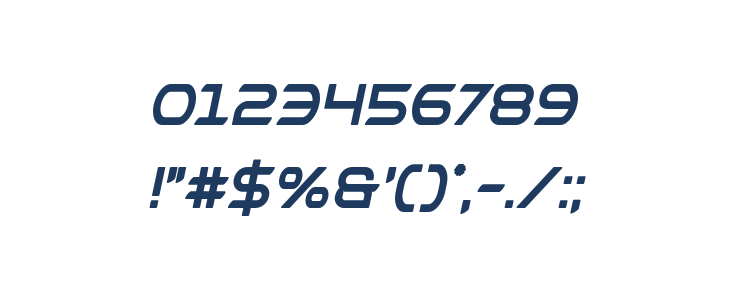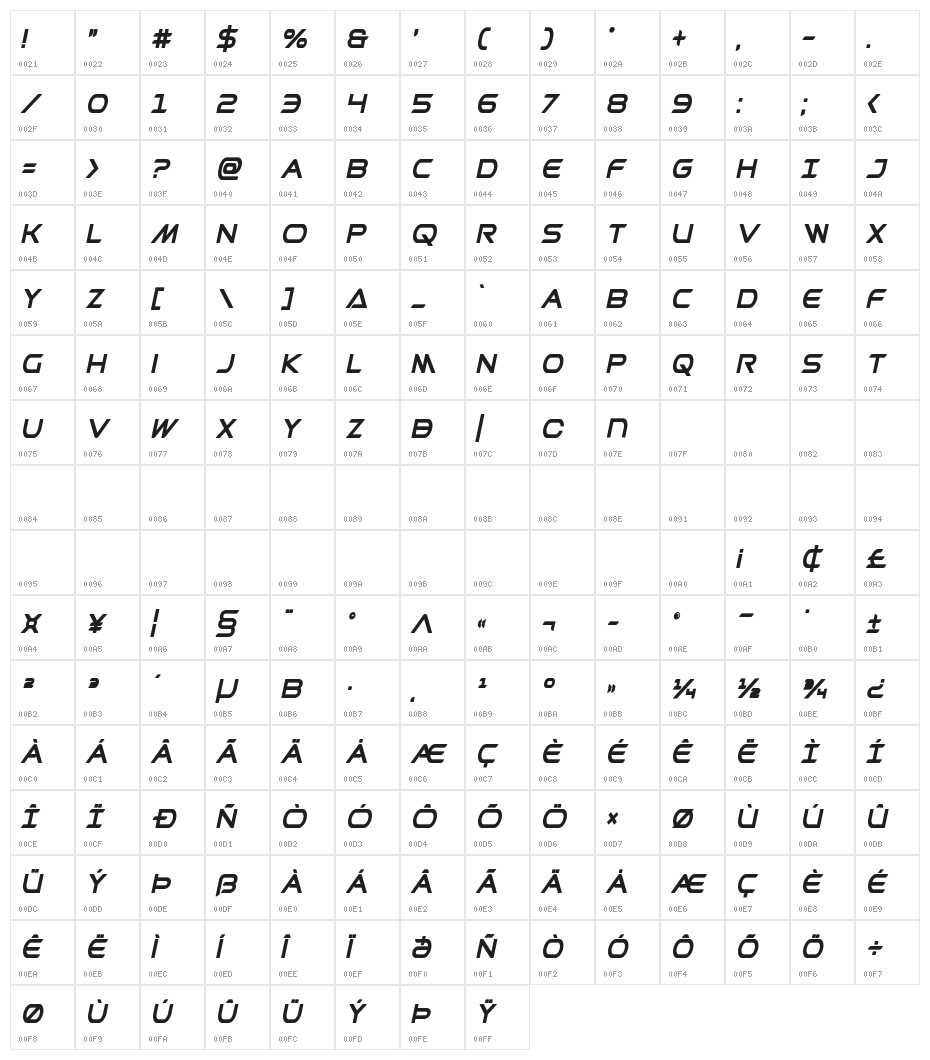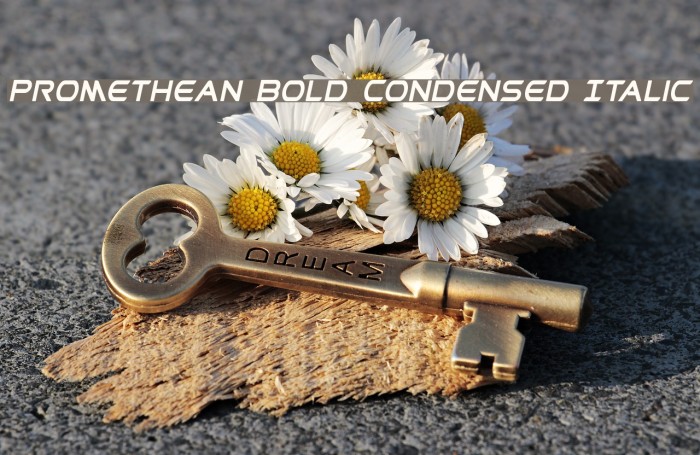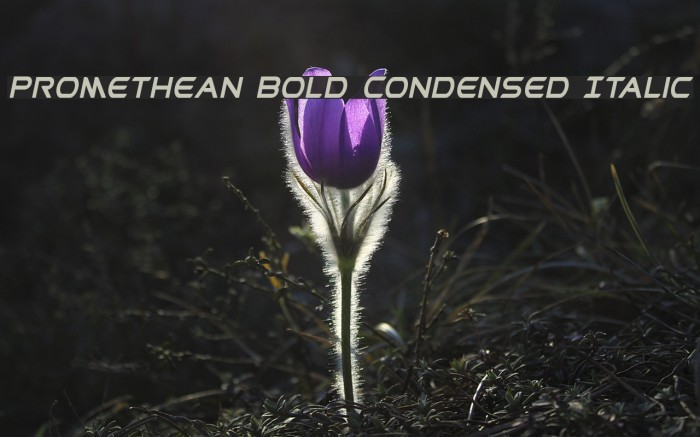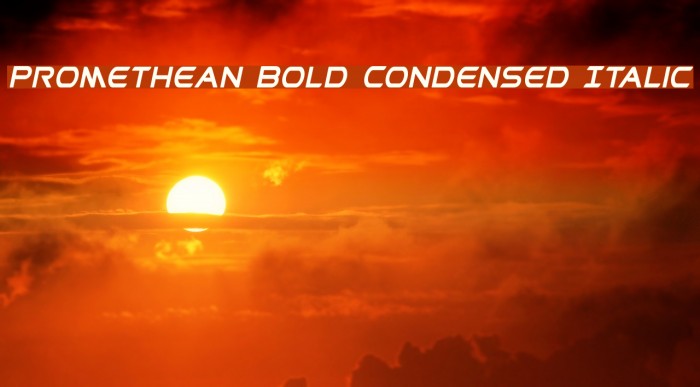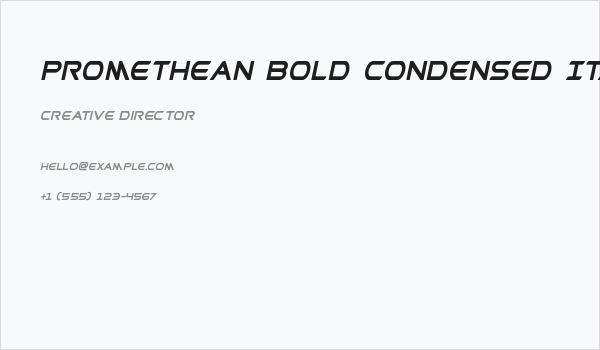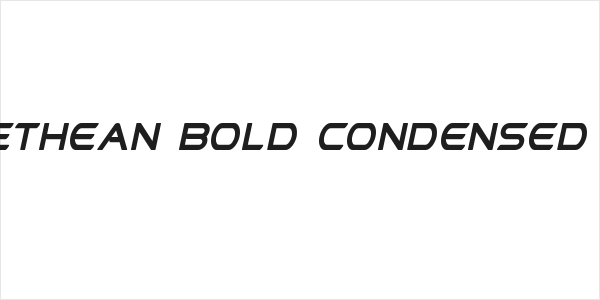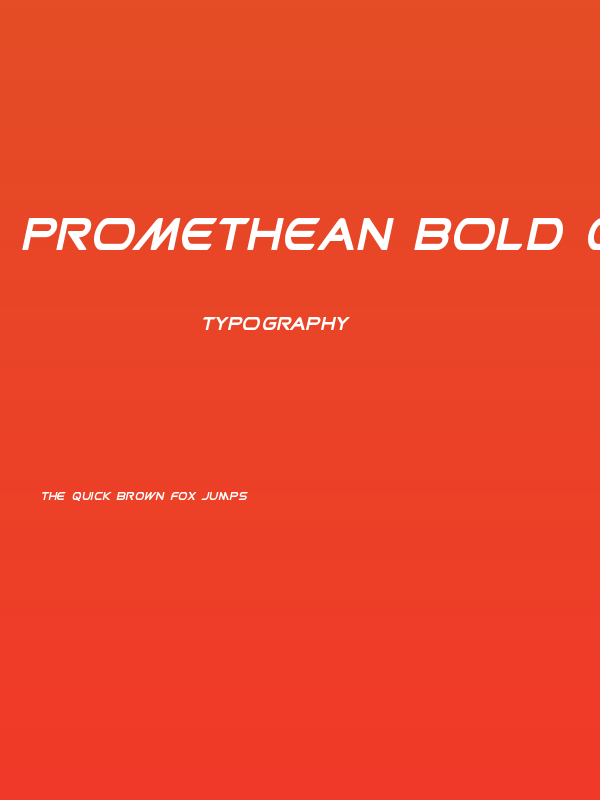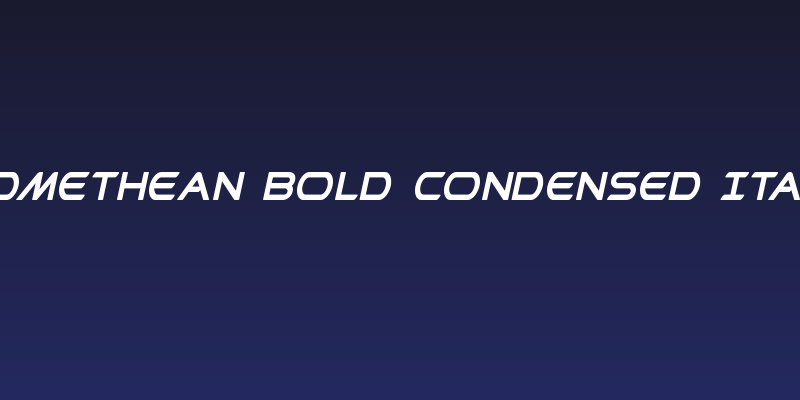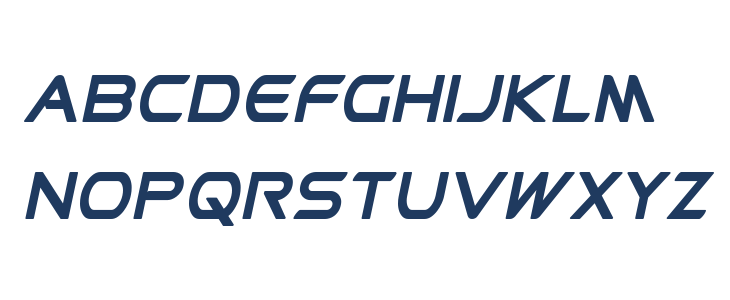
Promethean Bold Condensed Italic Font
Promethean Bold Condensed Italic Description
This font features a bold and condensed style with a distinct italic slant, giving it a dynamic and modern appearance. The characters are tightly spaced, enhancing its compact look. The strokes are consistent in thickness, providing a uniform and clean aesthetic. Its angular design and sharp edges contribute to a futuristic feel, making it suitable for contemporary projects. The font includes a full set of uppercase and lowercase letters, numerals, and a variety of special characters, ensuring versatility in usage.
| Proposed Projects | Ideal for branding, advertising, and headlines where a strong, modern impact is desired. |